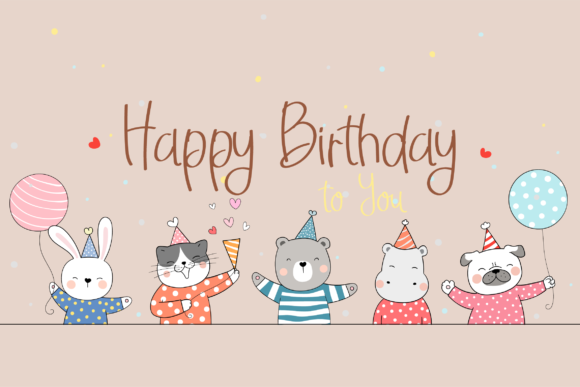
About Kimberly Daisy Font
Kimberly Daisy is a sweet, delicate and round lettered script font. This font was particularly crafted for those who need a beautiful and refreshing look to their designs.